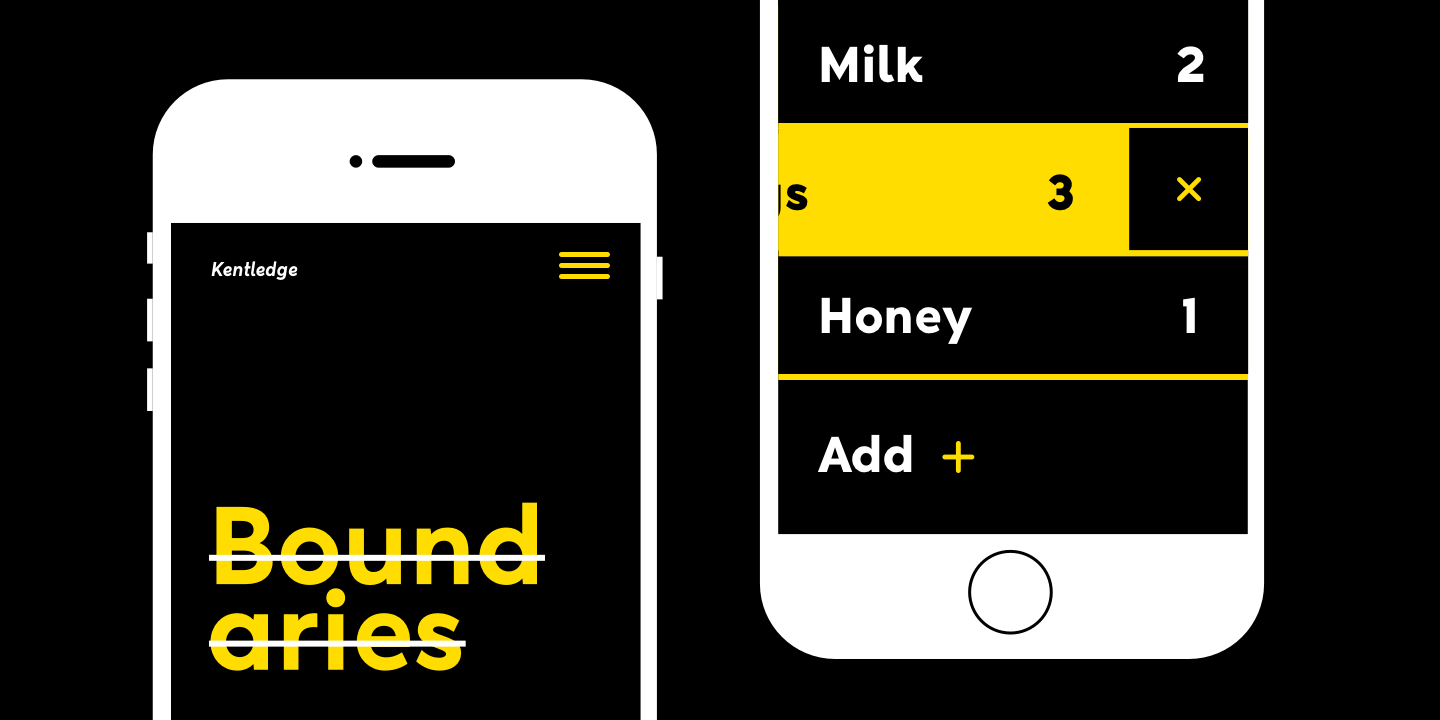
Kentledge Font is perfect for maritime museum displays, nautical-themed restaurants, sailing club branding, coastal resort signage, yacht charter marketing, marine equipment packaging, harbor master communications, seafaring adventure novels, and authentic maritime heritage designs.
What makes Kentledge Font exciting is its robust nautical authenticity that perfectly captures the steadfast reliability and weathered strength of seasoned maritime vessels through bold typography that honors centuries of seafaring tradition. The sturdily crafted letterforms showcase solid construction with distinctive maritime character that evokes memories of sturdy ship anchors, reliable ballast systems, and the unwavering stability that keeps vessels safe through the most challenging ocean conditions. This remarkable typeface embodies maritime heritage, nautical reliability, and seafaring adventure, making it the ideal choice for brands and projects that celebrate the timeless appeal of ocean exploration and maritime craftsmanship.
The Kentledge Font family includes multiple weights from Regular to Bold, with condensed variants for maximum impact in maritime applications. The comprehensive character set features uppercase and lowercase letters, nautical numerals, maritime symbols, and sailing-themed punctuation marks that enhance the authentic seafaring aesthetic across all marine and coastal design applications.
Maritime professionals and coastal designers seeking Kentledge Font Free Download will discover unlimited potential for creating memorable, ocean-inspired communications. This exceptional typeface transforms standard nautical text into compelling visual voyages that immediately communicate seafaring expertise, maritime tradition, and coastal authenticity. Whether you're designing yacht club materials, creating marine equipment branding, developing coastal tourism campaigns, or crafting sailing adventure publications, this font delivers outstanding results that anchor your message with genuine maritime authority and inspire audiences to embrace the adventurous spirit of life on the water.
The carefully balanced letter spacing and maritime construction make Kentledge Font highly effective across both large harbor signage applications and smaller nautical publication uses. Its seafaring character ensures seamless integration into marine-themed projects while maintaining excellent readability in challenging coastal weather conditions. From marina directories to sailing magazine spreads, this font consistently delivers the perfect nautical ballast for authentic maritime communications.